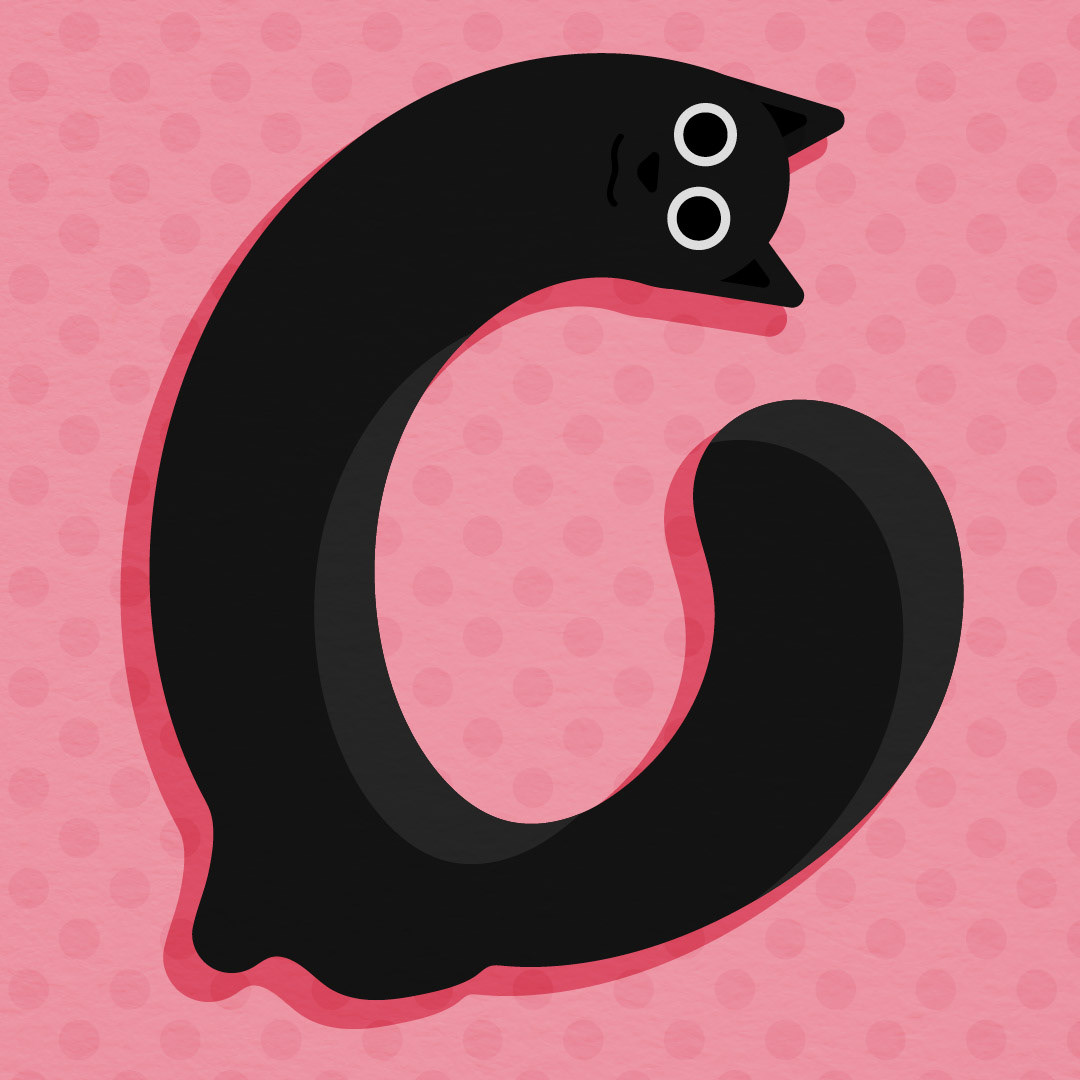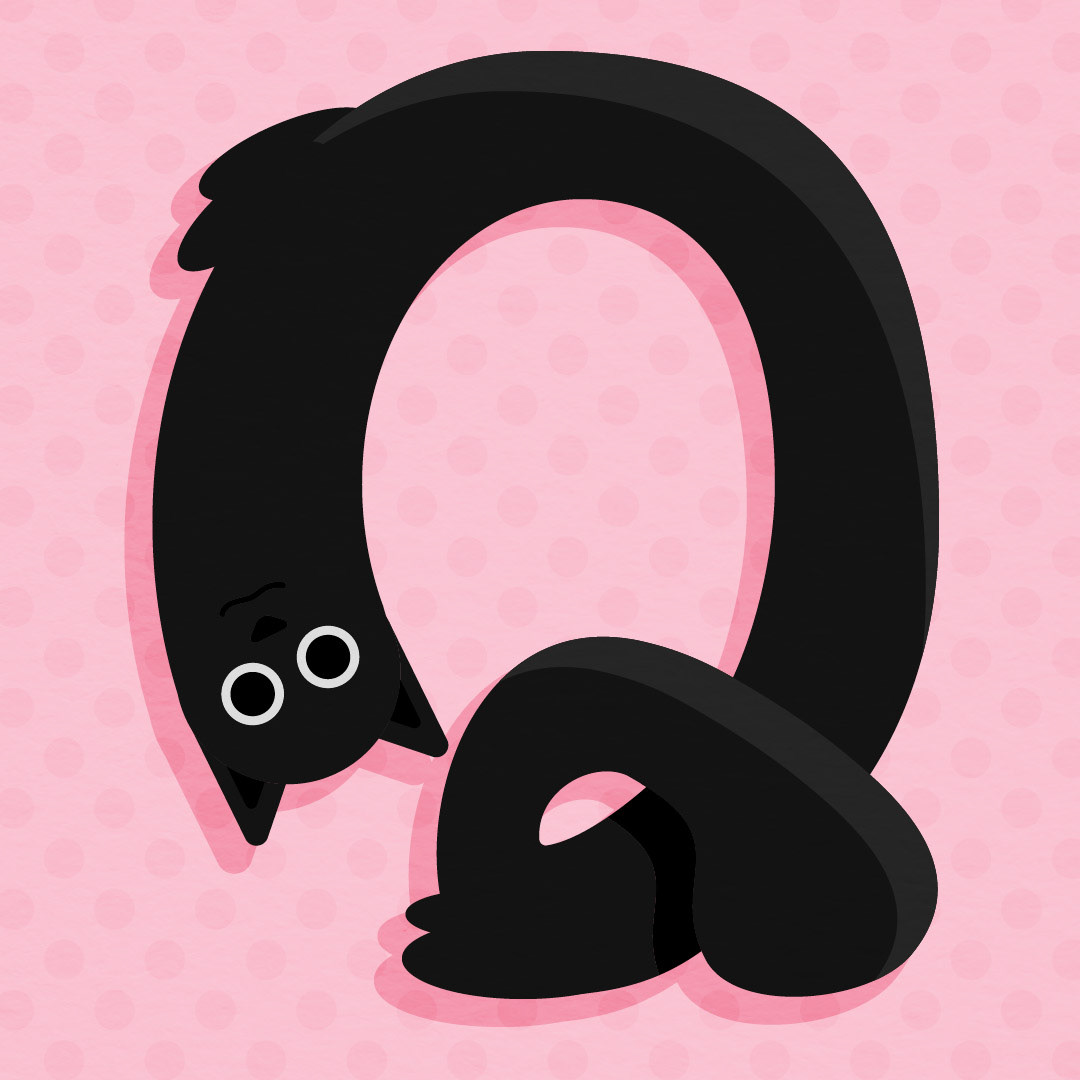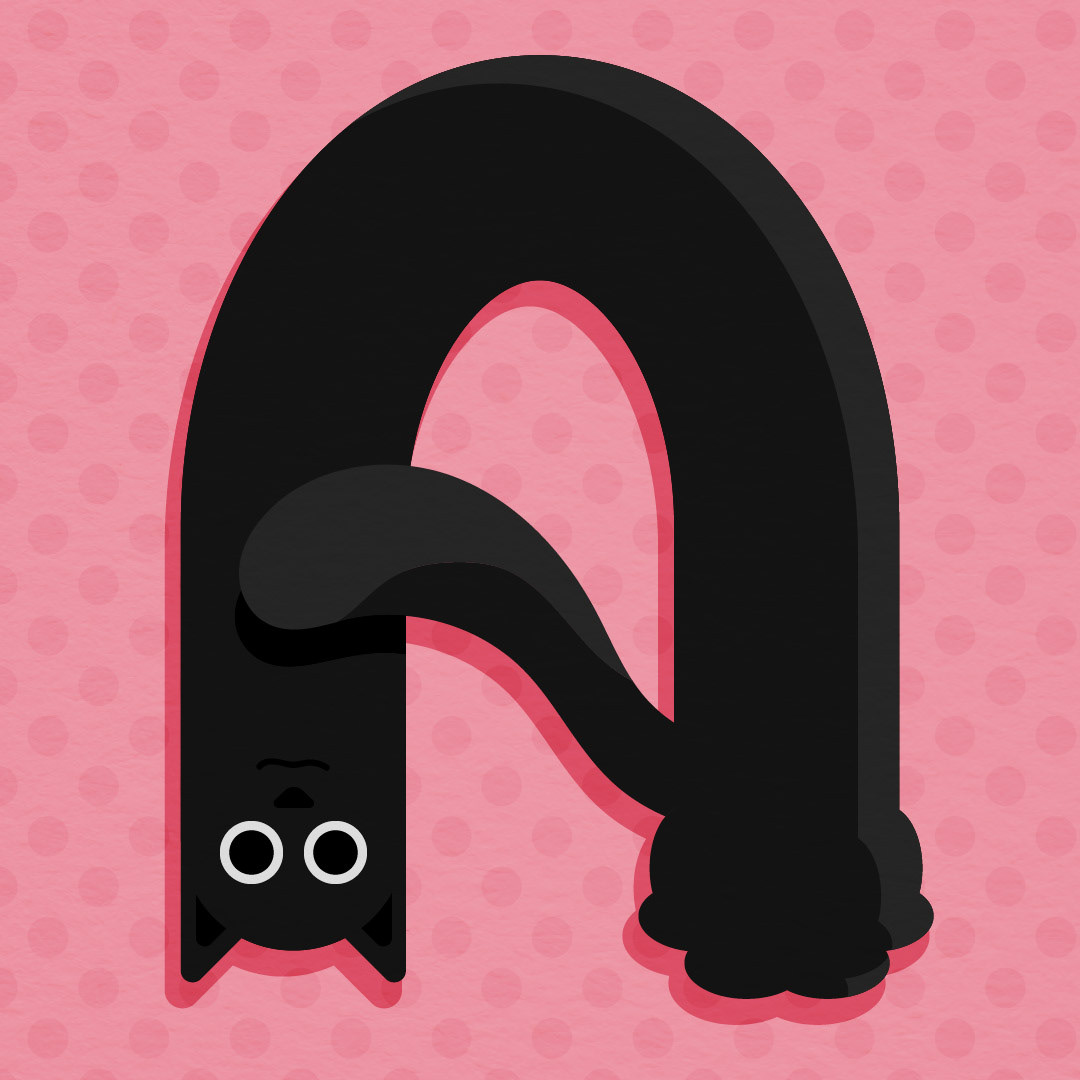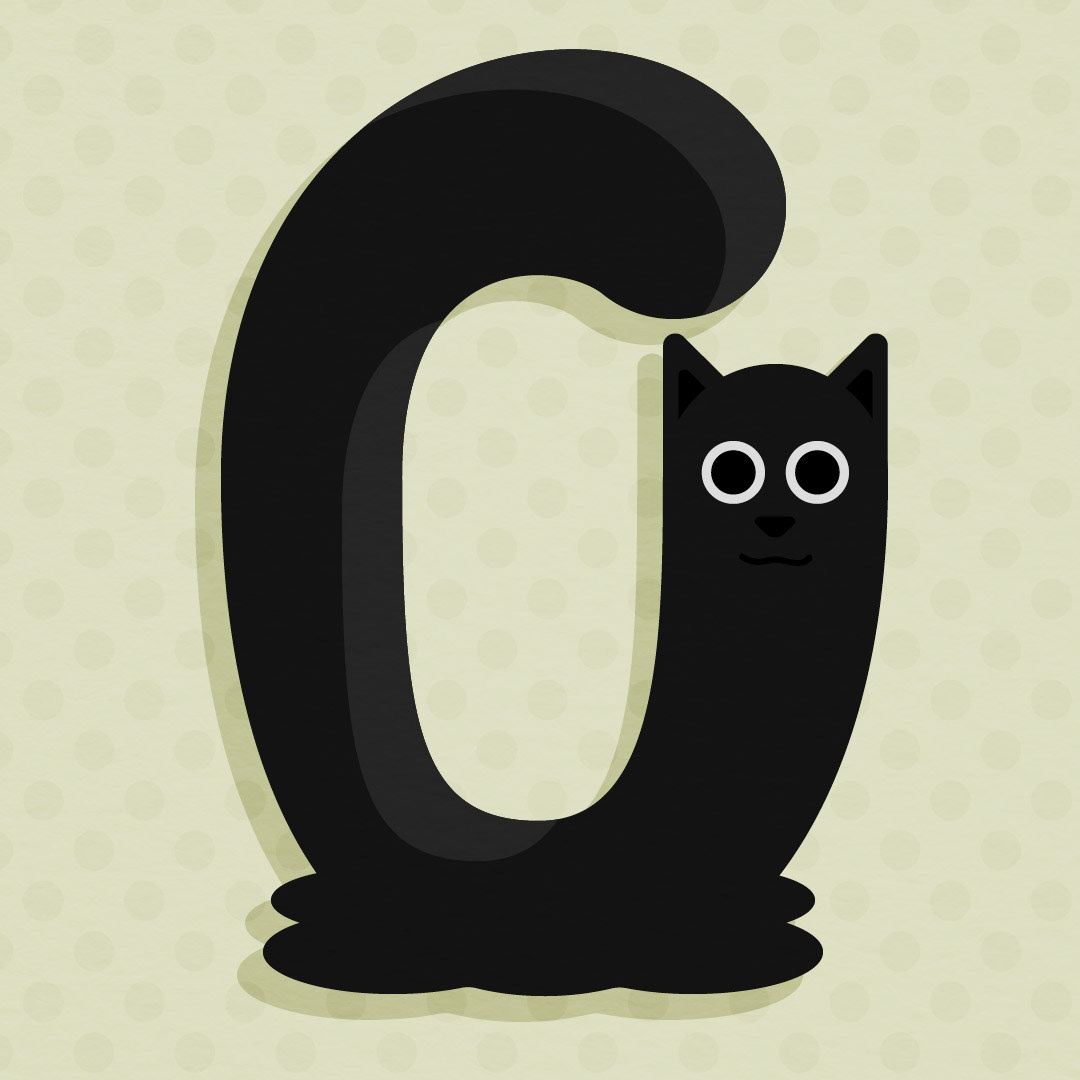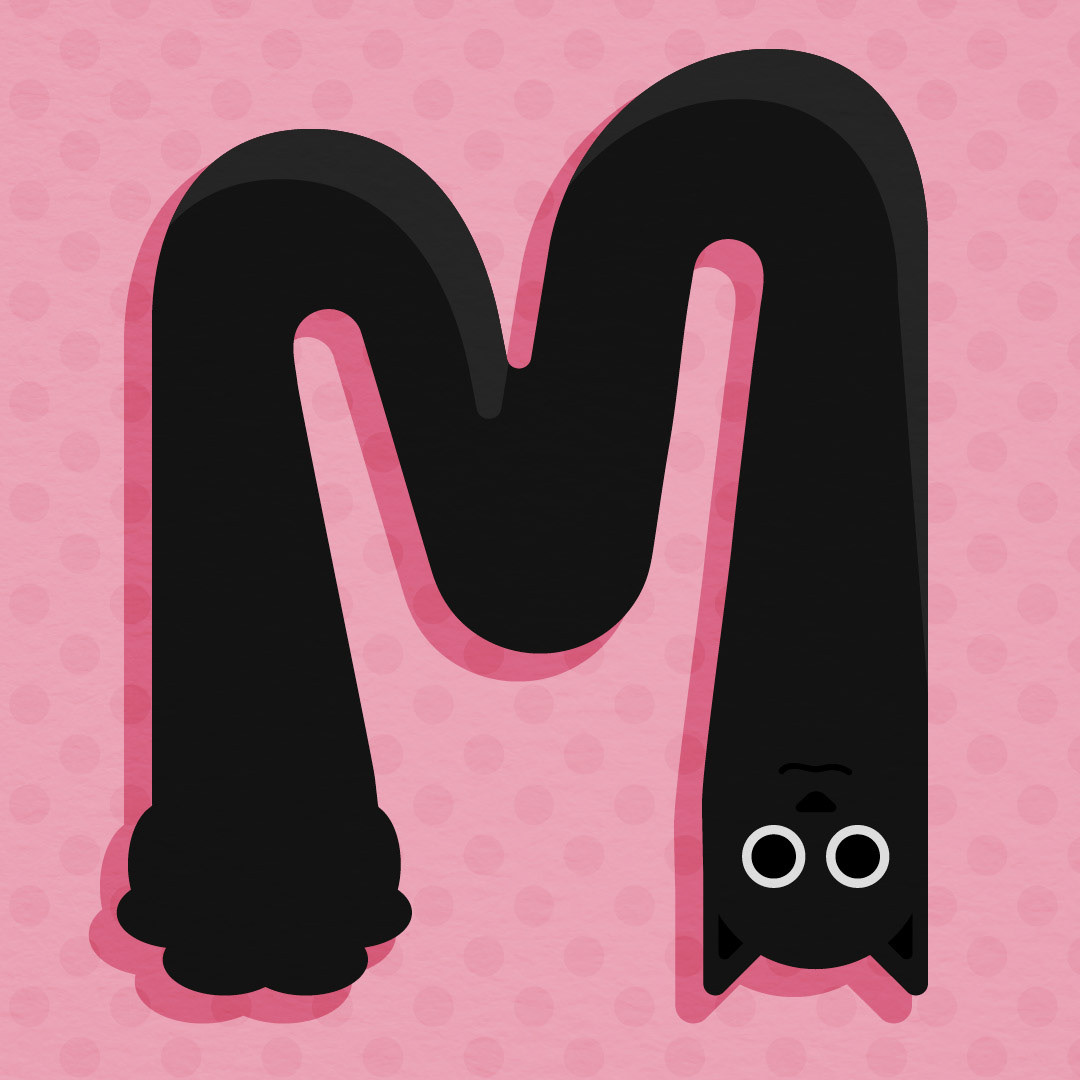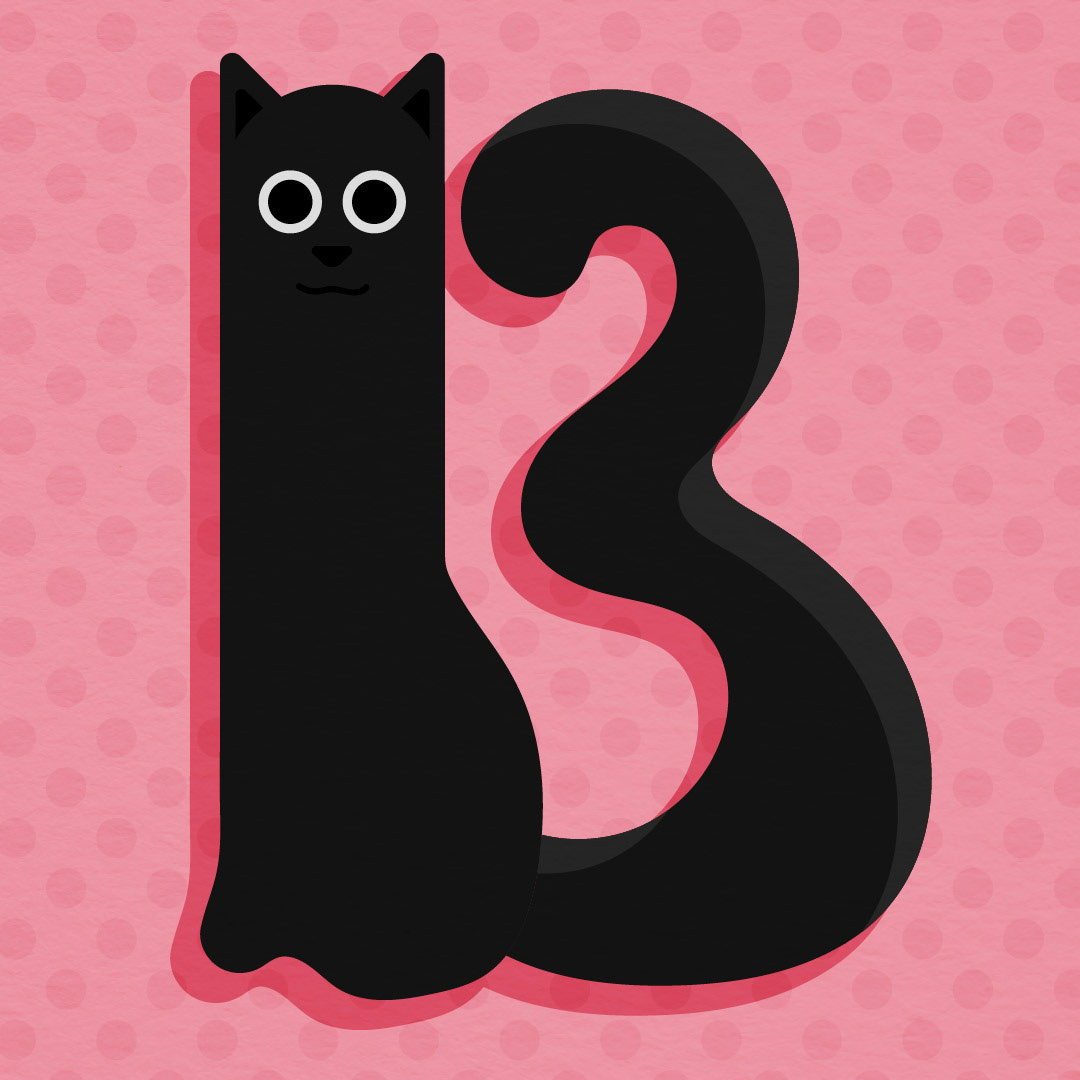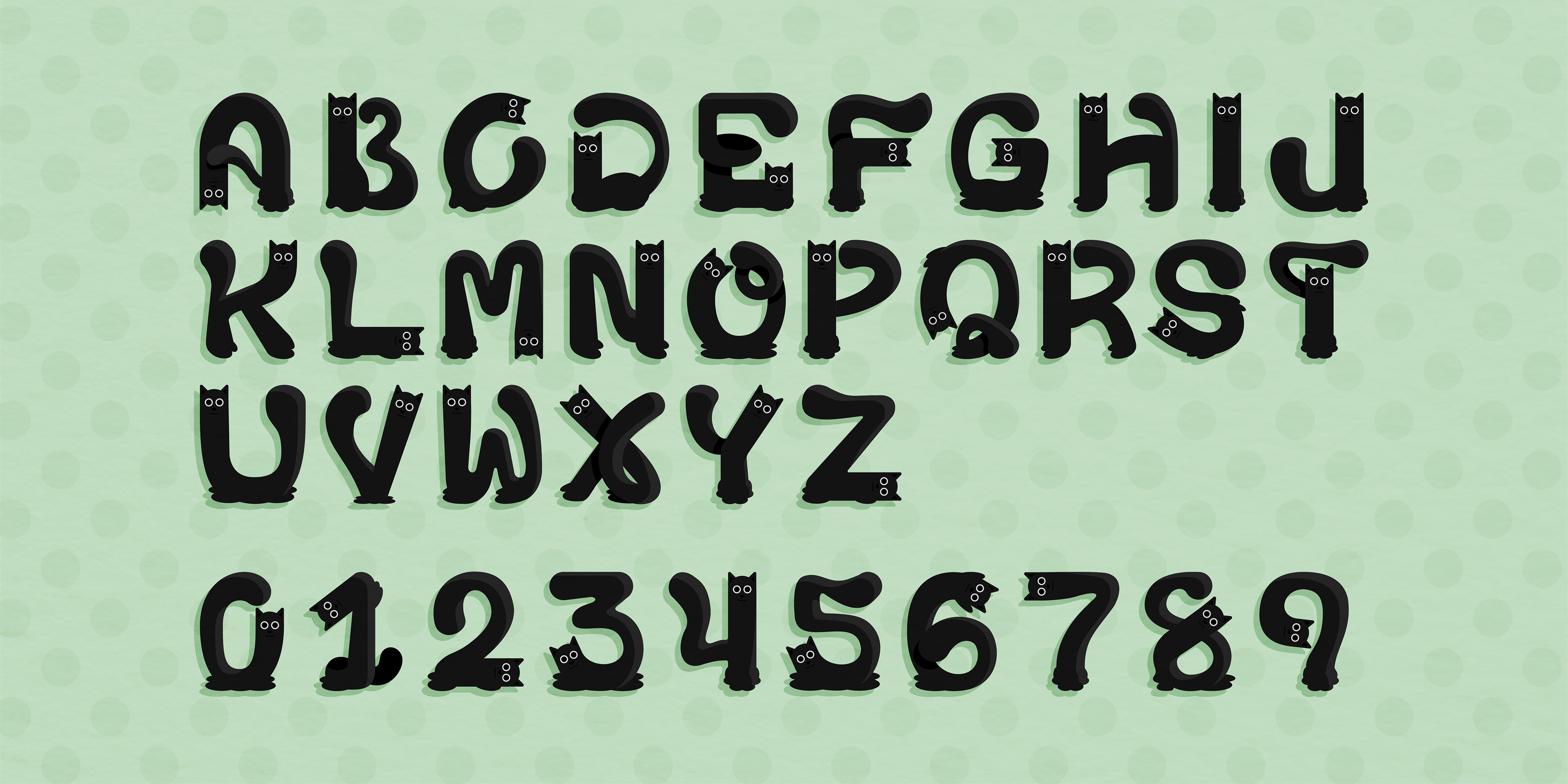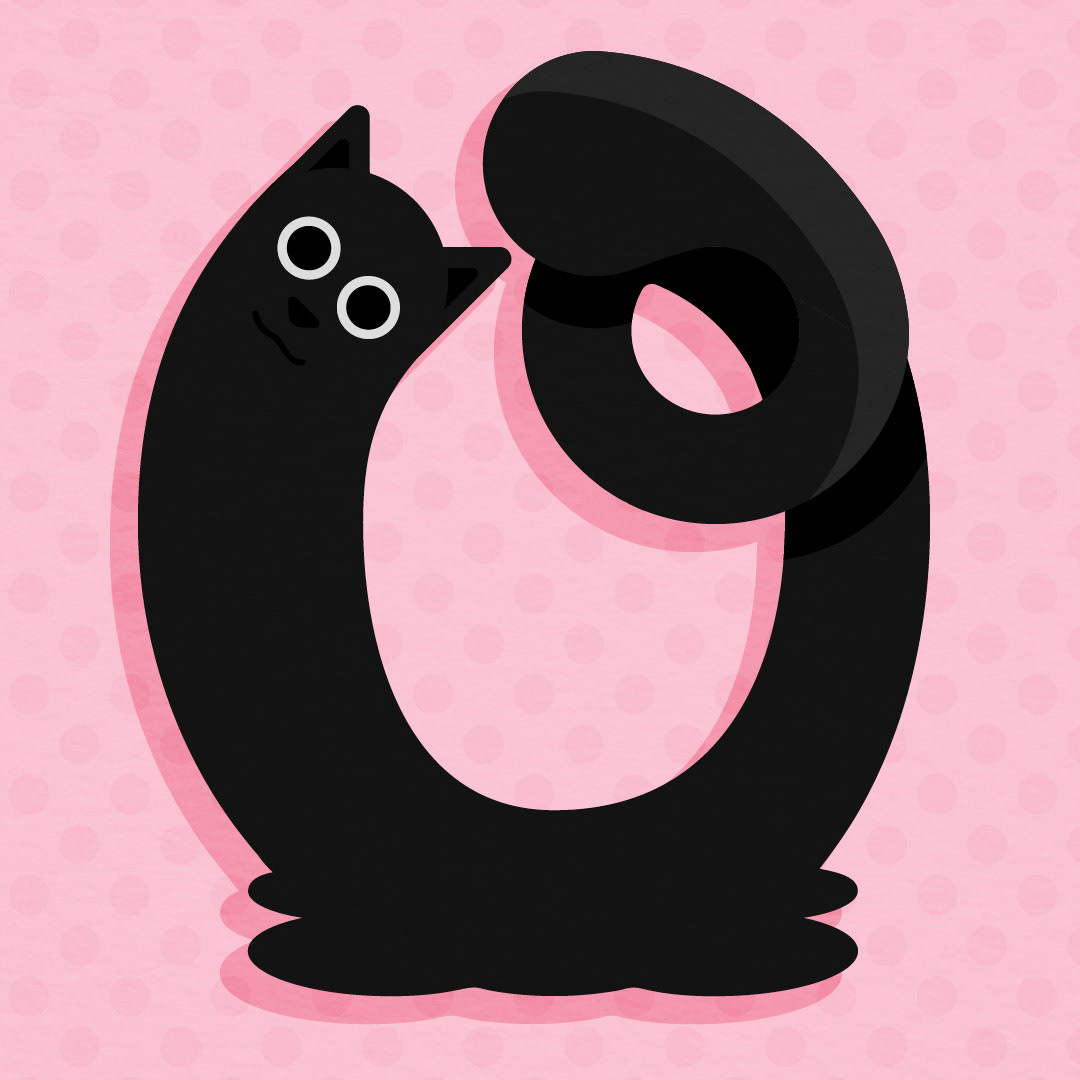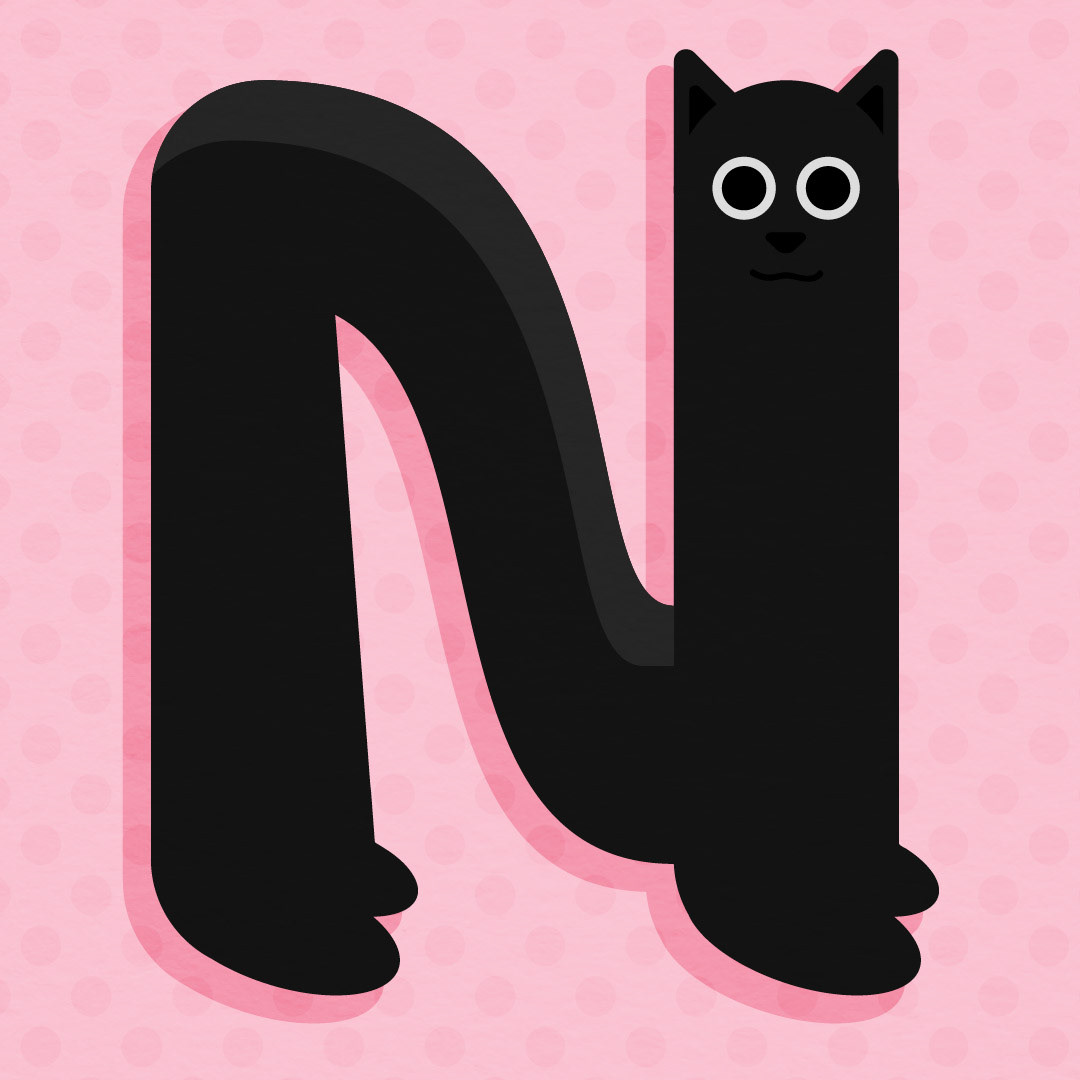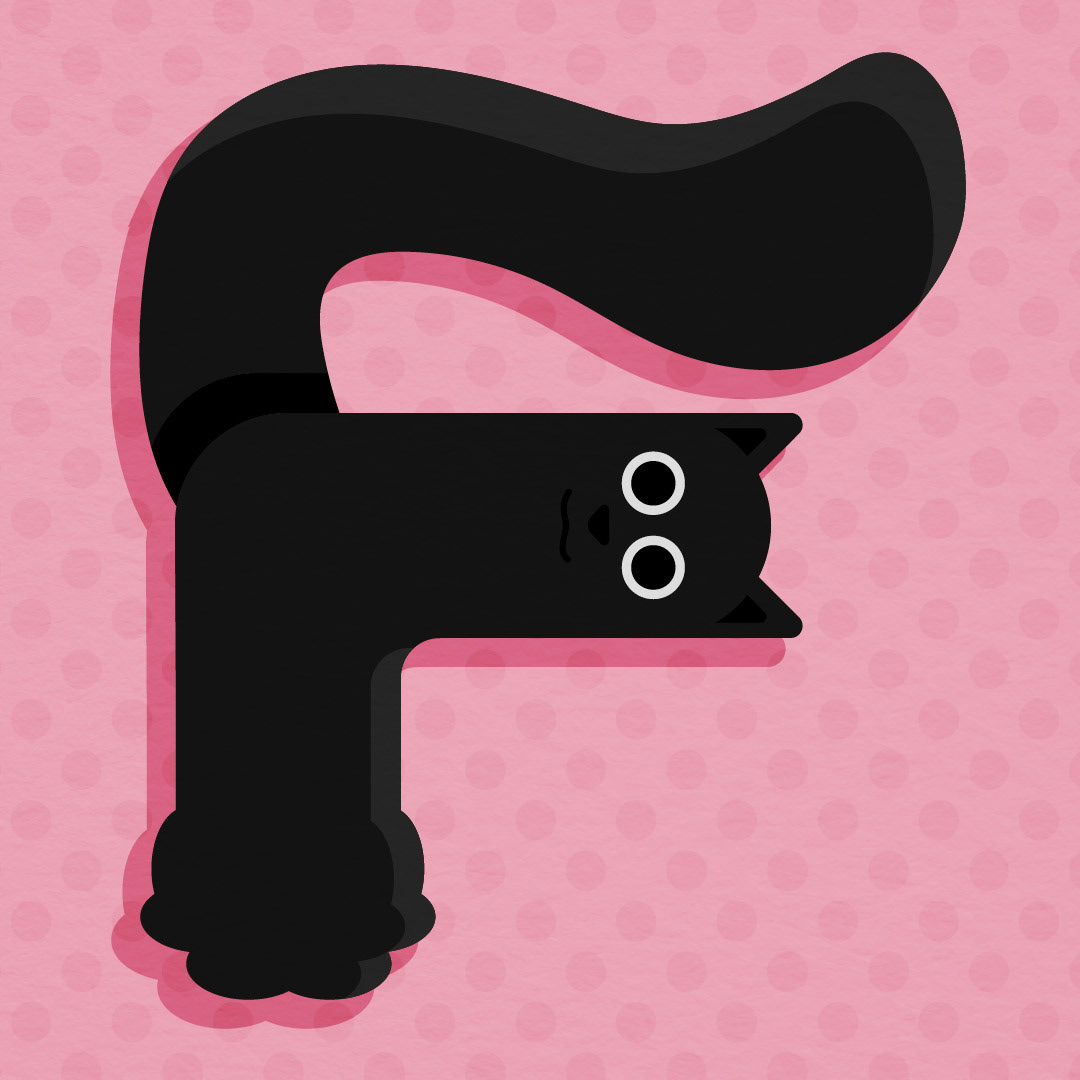
What started out as participating in the 36 Days of Type challenge ended up as a personal project made with a lot of love. Inspired by one small, sassy girl with the roundest wide eyes and her love to lay on her arched scratcher, the Feline Fine font was designed to bring some fun, whimsy letterforms to life with purr-sonality.
This group of letters and numbers were first sketched out in Photoshop before being brought into Illustrator in order to tweak these letterforms into the perfect "liquid void cat" look. Paired with some bright but soft colors, their silly positions are emphasized to not only be able to be displayed as a group of detailed drop caps (or drop cats if you would), but as a legible decorative font with character at a smaller scale.
Meet the Inspiration!
The Feline Fine font is inspired by this sweet and sassy girl, Creek, who is one of my two pawtners in crime. She enjoys becoming many shapes and has a fondness for laying on different textures.